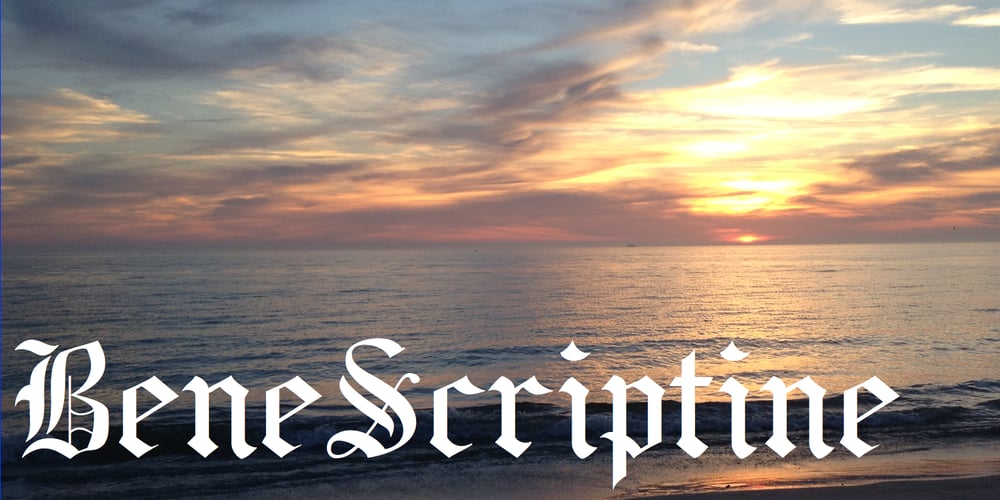
BeneScriptine
BeneScriptine font
BeneScriptine Font Family was designed by Robert Schenk and published by Ingrimayne Type. BeneScriptine contains 1 styles and family package options. BeneScriptine is an Old English or medieval face that can be used for awards and certificates, which is the major use of this sort of typeface.